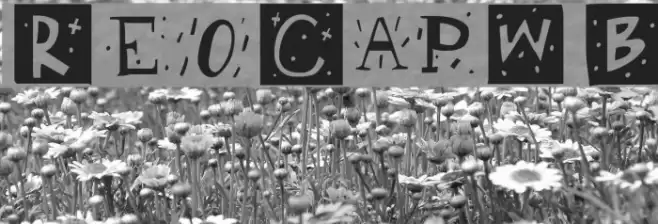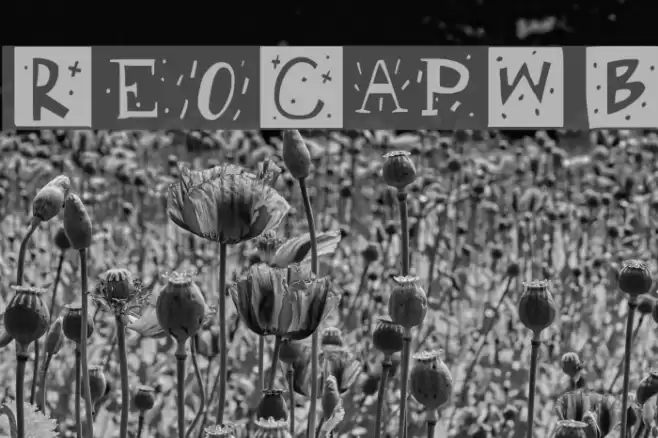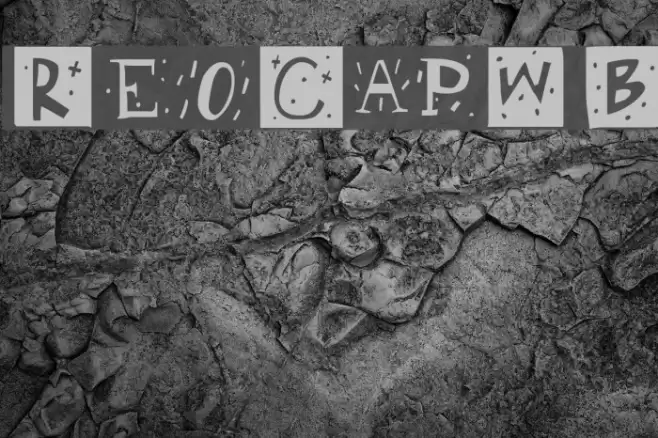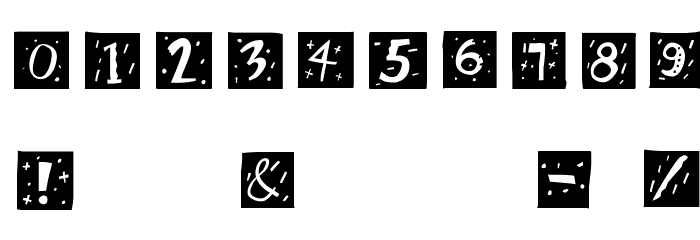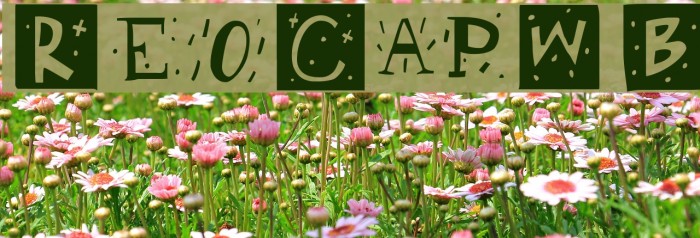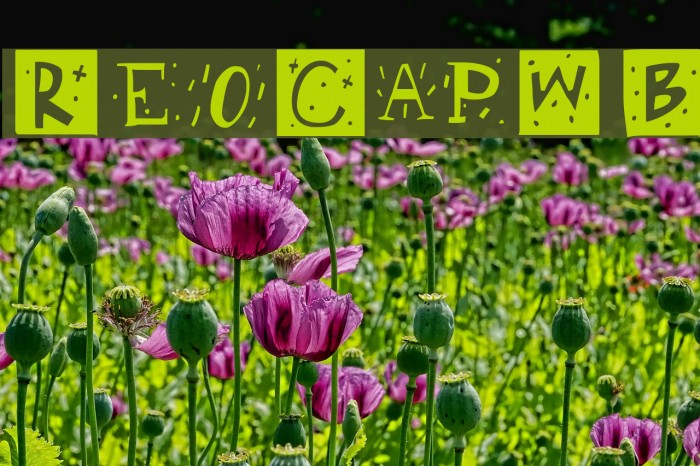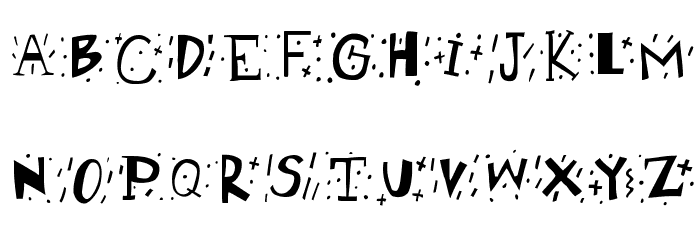
RetroCapsWB Font
RetroCapsWB Description
This font features a playful, retro-inspired design with each character enclosed in a square, reminiscent of vintage signage. The letters are adorned with stars and dots, adding a whimsical touch. The uppercase and lowercase letters maintain a consistent style, with bold, blocky forms that are easy to read. The numbers and special characters follow the same decorative theme, making the font cohesive and visually appealing. Its unique style makes it stand out, perfect for projects that require a touch of nostalgia and fun.
A playful, retro-inspired font with decorative stars and dots from Decorative fonts.
- Proposed Projects: Ideal for vintage-themed posters, children's book covers, party invitations, and retro branding projects.
- Overall Style: Retro, Decorative